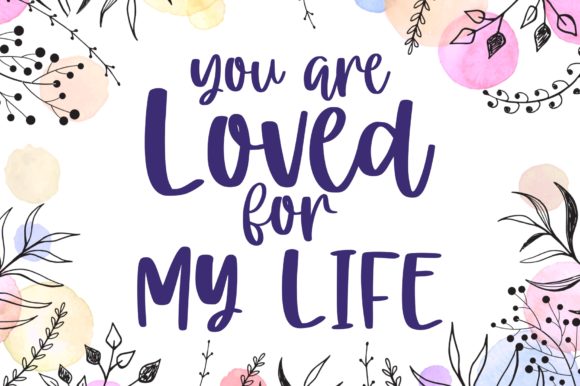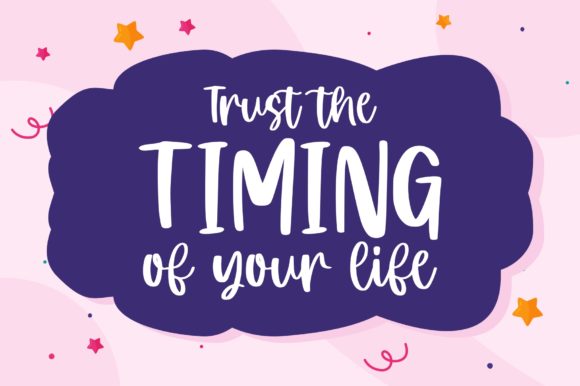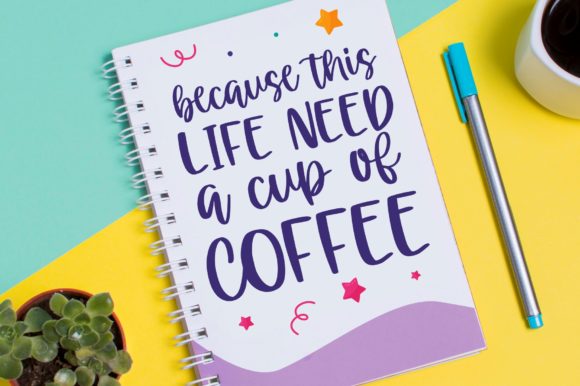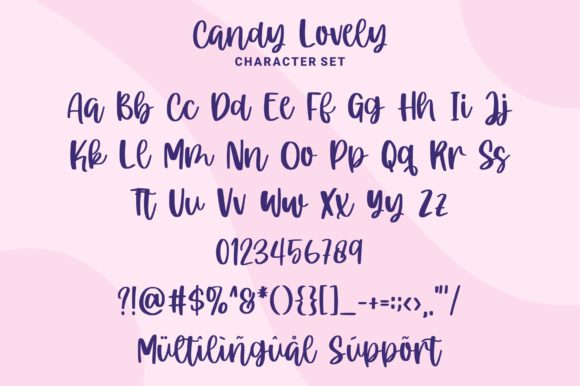
Candy Lovely Font: The Sweetest Addition to Your Design Collection
Are you on the hunt for a font that exudes elegance, sweetness, and a touch of playfulness? Look no further than the Candy Lovely Font! This stunning handwritten font is sure to capture your heart with its flowing lines, distinct style, and timeless charm. In this article, we’ll dive into the world of Candy Lovely, exploring its features, uses, and benefits for designers and crafters alike.
A Font that Steals the Show: Key Features of Candy Lovely
Candy Lovely is a true showstopper, boasting an elegant touch that’s perfect for a wide range of projects. Here are just a few of its key features:
- Flowing and Sweet Handwritten Style: Candy Lovely’s handwritten design is both fluid and sweet, making it ideal for creating beautiful, eye-catching text.
- Elegant Touch: This font’s elegant touch adds a level of sophistication and refinement, perfect for projects that require a bit of luxury and glamour.
- Incredibly Distinct and Timeless Style: Candy Lovely’s unique style is both timeless and distinctive, ensuring that your designs will stand out from the crowd.
Perfect for Your Favorite Projects
Candy Lovely is an incredibly versatile font, suitable for a wide range of projects and applications. Here are just a few ideas to get you started:
- Branding and Logo Design: Use Candy Lovely to create stunning logos and brand identities that exude elegance and sophistication.
- Wedding and Event Planning: This font is perfect for creating beautiful wedding invitations, party decorations, and other event materials.
- Digital and Print Design: Candy Lovely works beautifully in both digital and print formats, making it ideal for social media graphics, blog posts, and print materials like brochures and flyers.
- Crafting and DIY Projects: Add a touch of sweetness to your crafting and DIY projects, such as handmade cards, gift tags, and other paper crafts.
Why Designers and Crafters Love Candy Lovely
Candy Lovely has quickly become a favorite among designers and crafters, and for good reason. Here are just a few reasons why:
- Easy to Read and Understand: Despite its elegant and flowing design, Candy Lovely is incredibly easy to read and understand, making it perfect for body text and other applications where legibility is key.
- Customizable: This font is highly customizable, allowing you to adjust the size, color, and style to suit your project’s needs.
- Unique and Versatile: Candy Lovely’s unique style and versatility make it an excellent addition to any design collection, ensuring that you’ll always have a go-to font for your projects.
Tips and Tricks for Using Candy Lovely
To get the most out of Candy Lovely, here are a few tips and tricks to keep in mind:
- Pair it with Bold Fonts: Combine Candy Lovely with bold, sans-serif fonts for a striking contrast that adds visual interest to your designs.
- Experiment with Colors: Don’t be afraid to experiment with different colors and textures to add depth and dimension to your designs.
- Use it for Headings and Titles: Candy Lovely is perfect for headings and titles, where its elegant and flowing design can really shine.
In conclusion, Candy Lovely Font is a sweet and elegant addition to any design collection. With its flowing lines, distinct style, and timeless charm, it’s the perfect choice for designers and crafters looking to add a touch of sophistication and whimsy to their projects. Whether you’re working on branding and logo design, wedding and event planning, or digital and print design, Candy Lovely is sure to impress. So why wait? Fall in love with Candy Lovely today and take your designs to the next level!